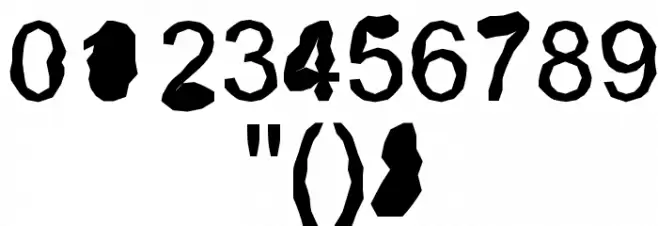
Distrowt Font
Distrowt Description
This font features a highly irregular and distorted style, giving it a unique and artistic appearance. The characters appear as if they have been hand-cut or eroded, with uneven edges and varying thicknesses. This creates a dynamic and visually intriguing texture across the text. The uppercase and lowercase letters maintain a consistent level of distortion, while the numbers and special characters follow suit, adding to the cohesive aesthetic. The overall look is bold and impactful, making it suitable for creative and unconventional design projects.
A distorted, artistic font with irregular, hand-cut style from Uncategorized fonts.
- Proposed Projects: Ideal for album covers, posters, and artistic branding projects.
- Overall Style: Artistic, Distorted
- Use Case: Headlines, Logos, Artistic projects